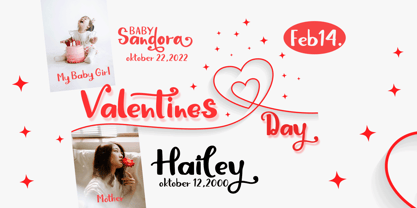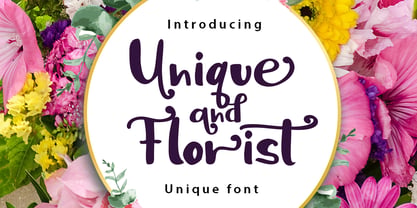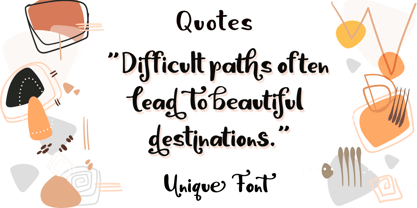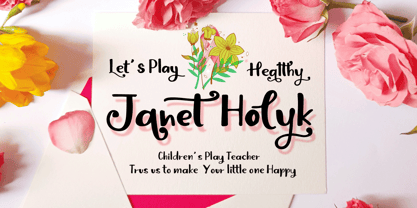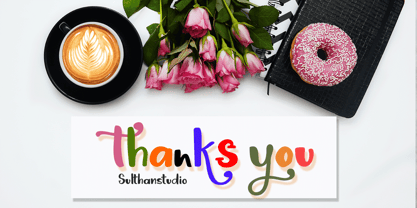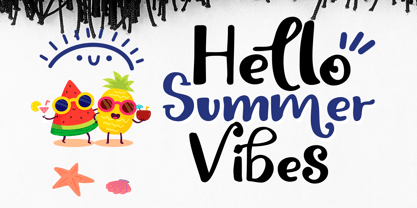
Unique and florist
by Sulthan Studio
The Unique and florist Font Family was designed by Nasrullah and published by Sulthan Studio. Unique and florist contains 1 styles. More about this family
is a fun and friendly display font. Whether you are using it for cartoon- related designs, children games, quotes, titles, brand names, book covers, posters, or just any creation that requires a touch of joy, this font is a great choice.